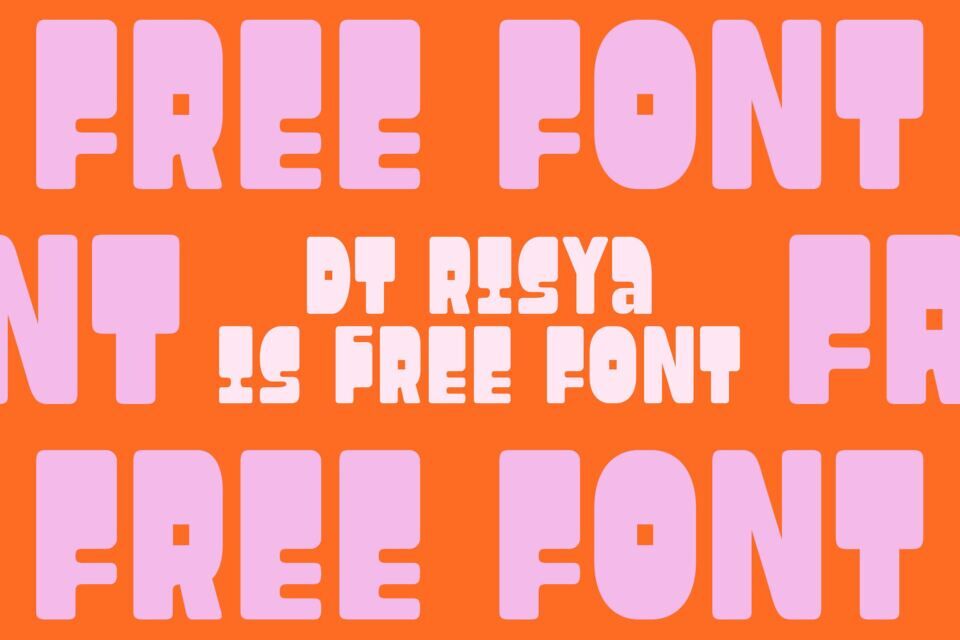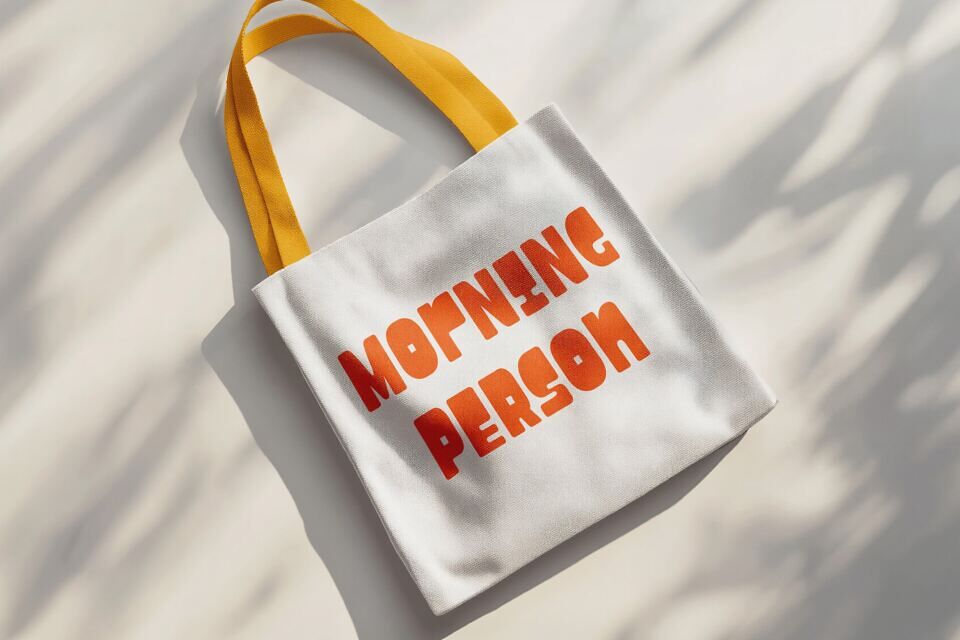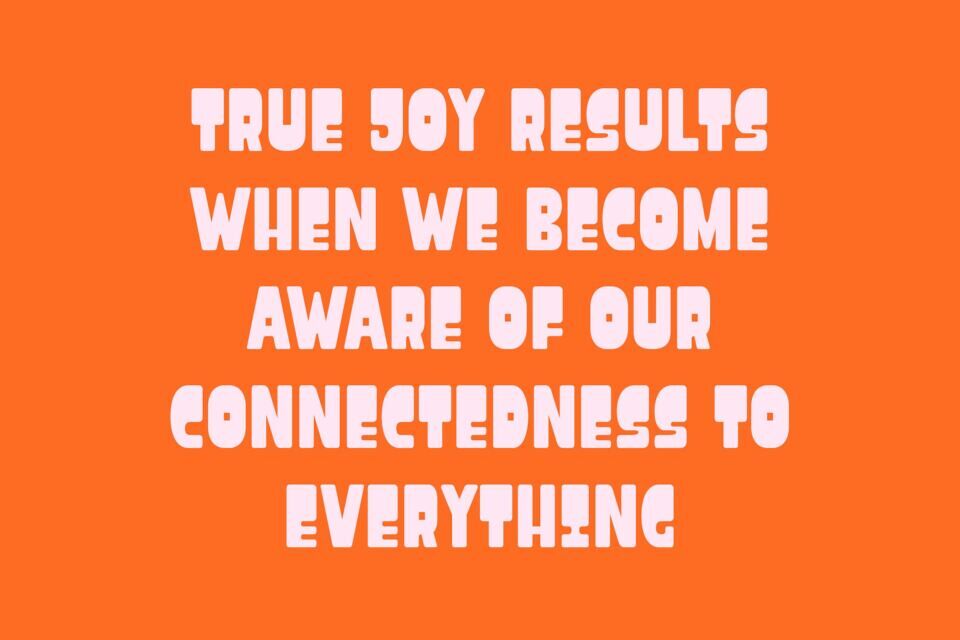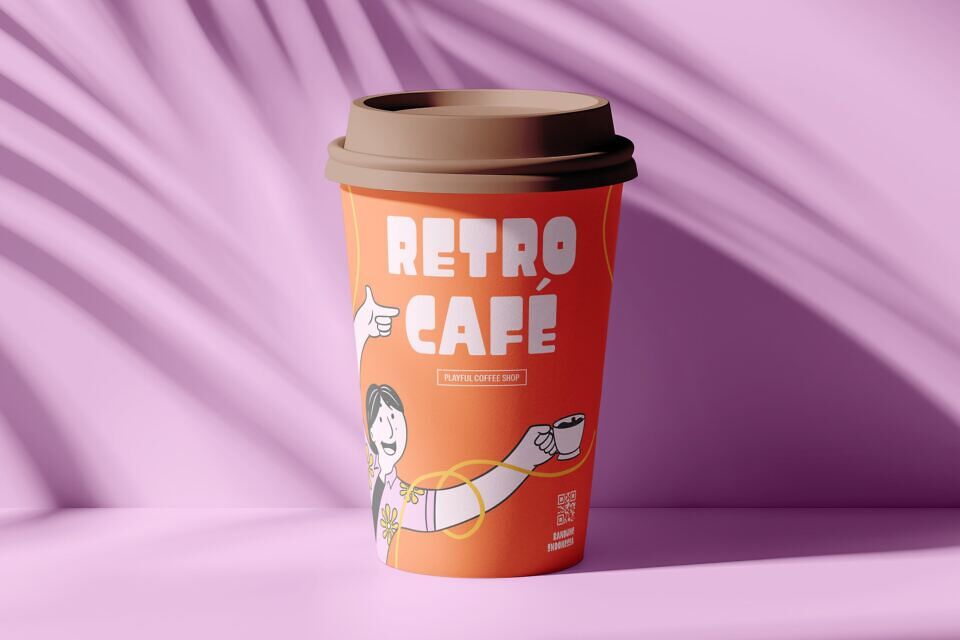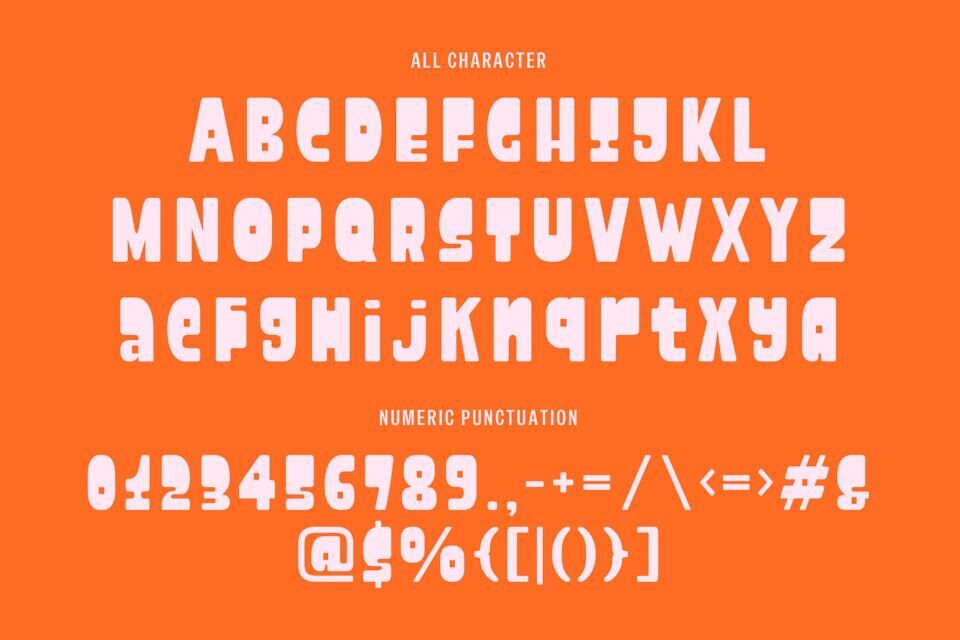
DT Risya is a font inspired by the spirit of young people, which is cute and playful with a retro theme. The font I created is meaningful & very versatile, suitable for various designs, elevating it to the highest level. Add this font to your favorite creative ideas and see the results!
Features: Single Character, Alternate, Numeric, & Multilingual Support.